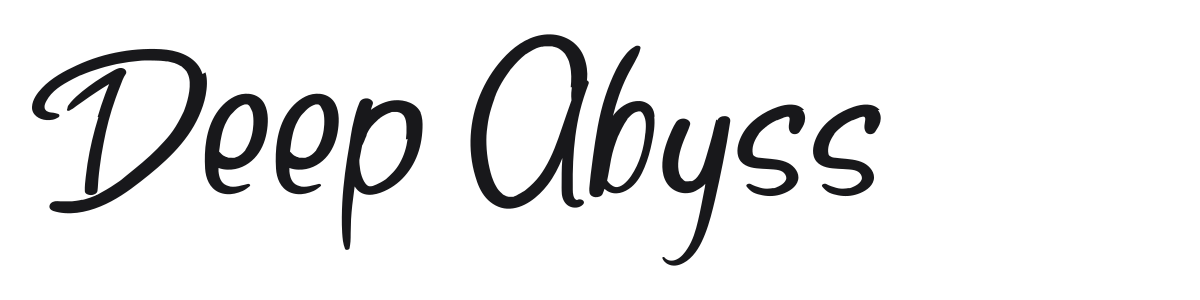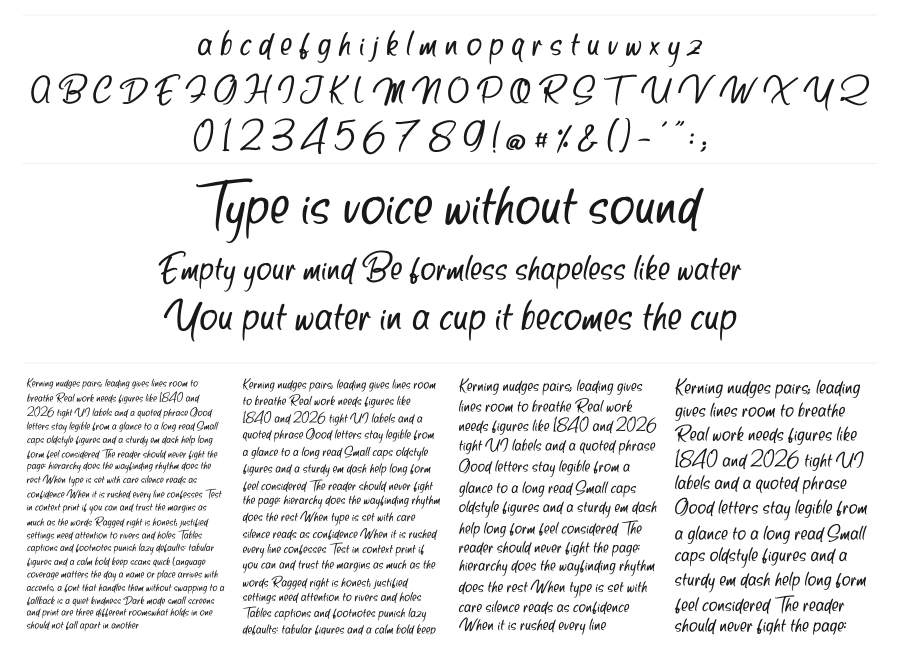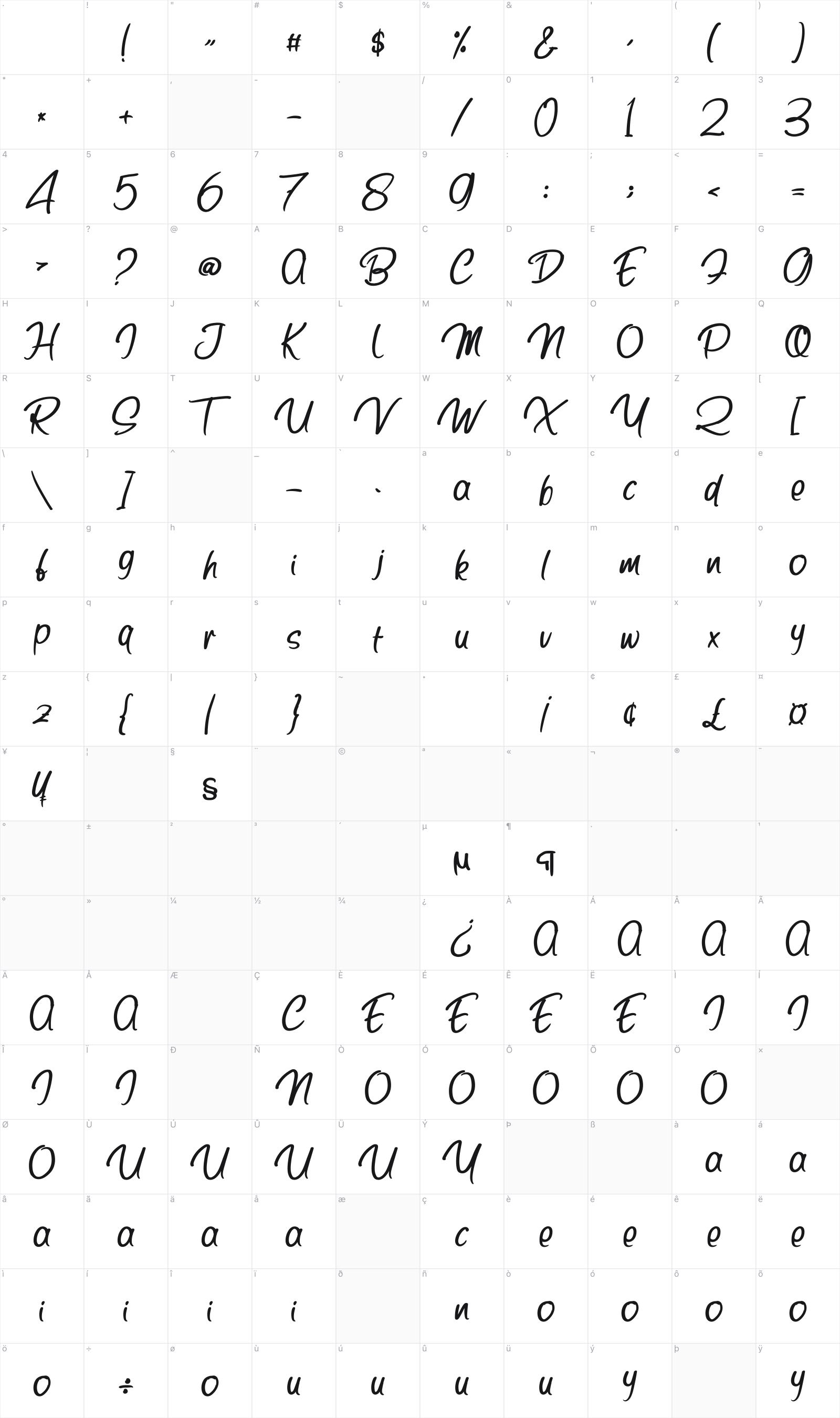
Deep Abyss
Deep Abyss is a casual handwritten script with relaxed, flowing connections and a natural pen-written feel. The near-monoweight strokes and gently irregular baseline give it a warm, approachable personality that works well on invitations, packaging, and lifestyle branding. It reads as effortlessly personal rather than formally calligraphic.